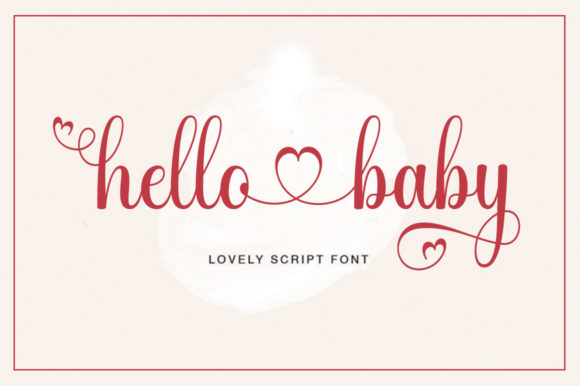
Introducing Hello Baby Font, the script font that exudes elegance and grace. Created by LetterFreshStudio, this captivating font is perfect for those seeking the best font for casual use on documents.
Hello Baby Font effortlessly adds a touch of sophistication to any design, making it ideal for wedding invitations, thank you cards, quotes, greeting cards, logos, business cards, and more. Its handwritten style brings a personal and intimate feel to your projects, leaving a lasting impression on anyone who lays eyes on it.
What sets Hello Baby Font apart is its incredibly elegant and flowing nature. Its smooth lines and varying baseline create a visually stunning display that is both visually appealing and emotionally captivating. With its stunning alternates and gorgeous glyphs, this font offers endless possibilities for creativity and originality.
Whether you're aiming to create a romantic wedding invitation that will leave guests breathless, or a professional business card that showcases your unique style, Hello Baby Font is the perfect choice. Its versatility allows it to adapt effortlessly to any design concept, while still maintaining its elegant charm.
Not only does Hello Baby Font possess a visually striking appeal, but it also boasts a keyword-rich quality that enhances its discoverability. As the best font for casual use on documents, it ensures that your content stands out among the vast sea of fonts available.